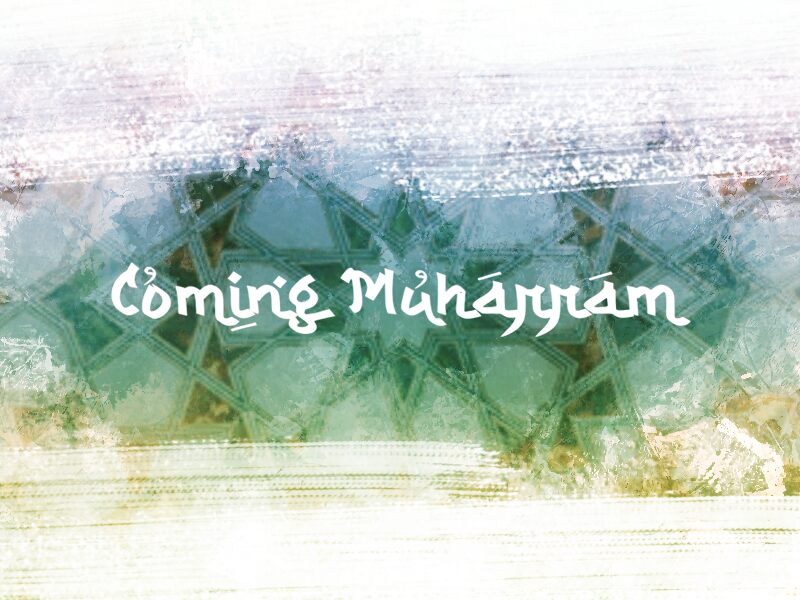
Coming Muharram
Experience the captivating beauty of Coming Muharram, an exquisite foreign font designed by wep. With its unique and intricate faux Arabic style, this font is perfect for bringing a touch of exoticism to your design projects. The semi-bold font weight lends authority and impact, while the moderate width ensures legibility on both print and digital media. Use Coming Muharram in your branding designs to evoke a sense of cultural richness or add an air of mystique to book covers, invitations or posters. Let this stunning typeface transport you to a world of wonder and intrigue!